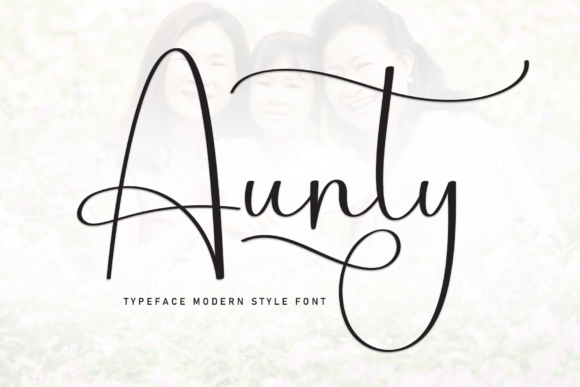
Unleash the Elegance of Aunty Font: A Stroke of Beauty for Your Creative Canvas
In the realm of typography, where words dance and emotions ignite, Aunty Font emerges as a captivating script, ready to transform your designs into exquisite masterpieces. Its enchanting curves and graceful strokes evoke a sense of timeless elegance, leaving an indelible mark on every project it adorns.
As a symphony of aesthetics and functionality, Aunty Font is the perfect dance partner for wall displays, where its beauty takes center stage, captivating every eye that beholds it. Its versatility extends to wedding invitations, where it eloquently captures the essence of love and commitment, adding a touch of ethereal charm to this momentous occasion.
In the vibrant world of social media, Aunty Font becomes an indispensable tool for crafting logos that resonate with your brand's personality. Its distinctive style adds an air of sophistication to your social media presence, helping you stand out from the crowd and attract a loyal following.
Aunty Font's allure extends to the realm of advertising, where it transforms mundane promotional messages into captivating narratives. Its elegant curves capture attention, inviting viewers to engage with your brand and delve deeper into your offerings. With Aunty Font as your ally, your products and services will shine brighter than ever before.
For the discerning designers seeking to create packaging that reflects the essence of their products, Aunty Font is the ultimate choice. Its delicate strokes add a touch of refinement, transforming ordinary boxes and containers into objets d'art. Your customers will not only appreciate the contents but also cherish the packaging, making your brand synonymous with excellence.
Whether you're designing sleek product labels or crafting captivating photography, Aunty Font is your trusted companion, enhancing every element with its timeless elegance. Its versatility knows no bounds, making it an indispensable asset for any creative endeavor that demands a touch of sophistication.
The Aunty Font family welcomes you with open arms, offering a treasure trove of stylistic options that cater to every taste and project. From the classic charm of the Script Regular to the playful exuberance of the Script Bold, Aunty Font adapts seamlessly to your creative vision, adding a dash of brilliance to every design.
Dive into the world of Aunty Font and let your creativity soar to new heights. Experience the joy of transforming ordinary designs into extraordinary works of art. With Aunty Font as your ally, you'll unlock a world of possibilities, leaving a lasting impression on every project you undertake.